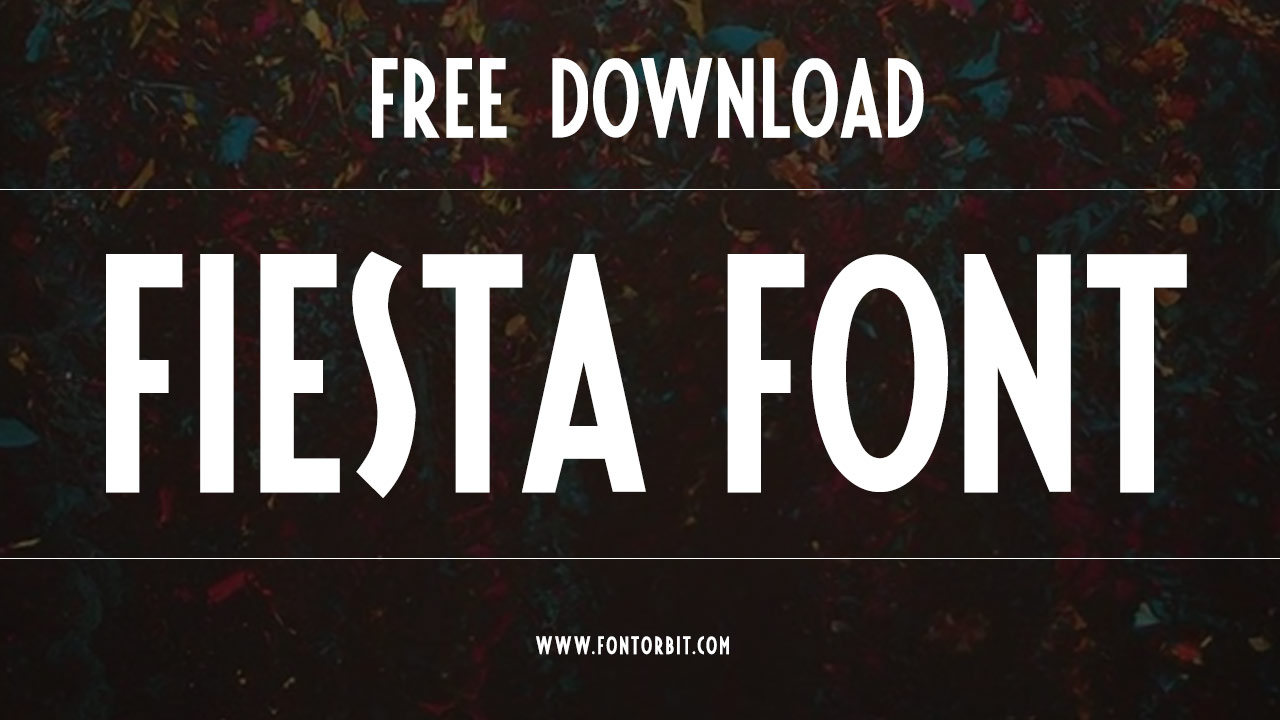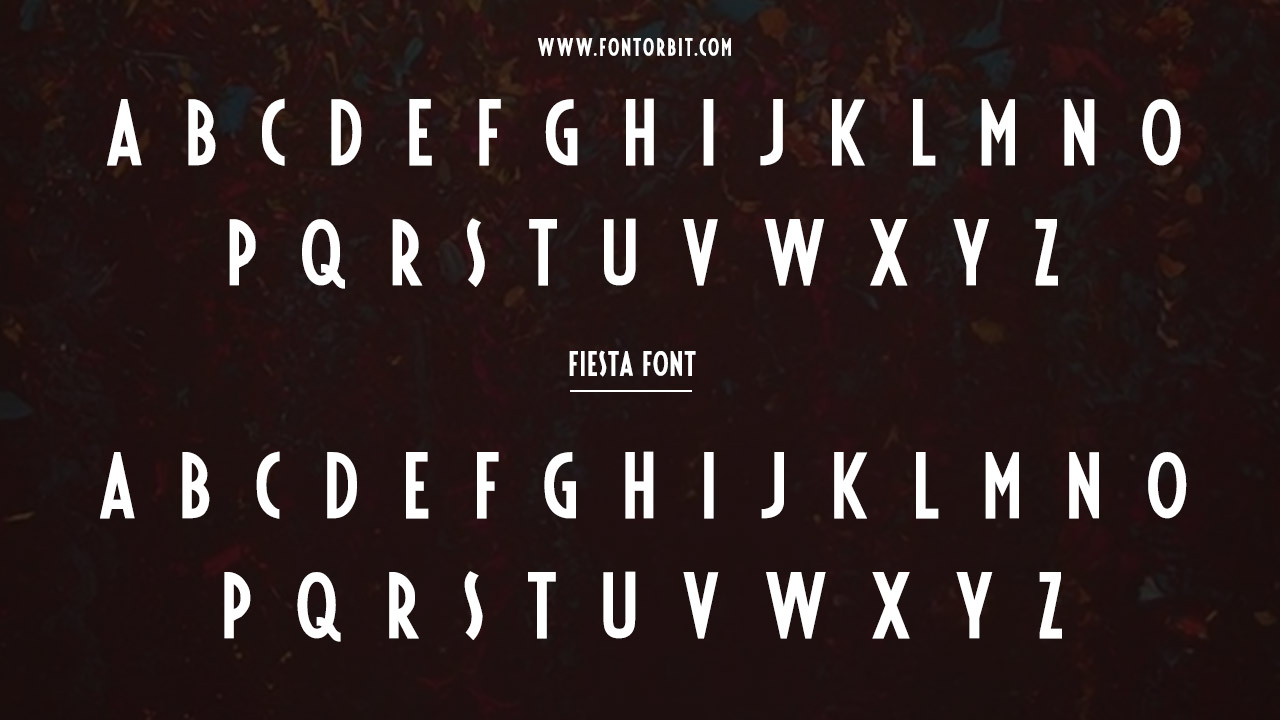
Fiesta Font is a decorative, bold typeface designed by Nowak tv. Its playful curves and retro flair make it perfect for designs that need a touch of fiesta-inspired creativity. Whether working on a Mexican fiesta theme, Cinco de Mayo branding, or party posters, Fiesta Font brings energy and excitement to your designs. Available for free for personal use, the full commercial license unlocks its potential for business projects, logos, branding, and more.
Best Uses
Fiesta Font Shines In The Following Design Projects:
- Mexican Fiesta event posters
- Western-themed designs
- Greeting cards and invitations
- Flyers for celebrations (e.g., birthday, Cinco de Mayo, Tequila-themed parties)
- Branding for products with a bold, festive vibe
- Website headers or typography that needs a retro, decorative touch
- Logos that require a playful, attention-grabbing look
- Labels for products with a Mexican or retro cultural feel
- Banner designs that stand out with fun, decorative fonts
Best Font Pairing
- Montserrat (modern, clean contrast)
- Raleway (sophisticated and elegant)
- Roboto (perfect for pairing with display fonts like Fiesta for readability)
Fiesta Font stands out as a vibrant, decorative typeface that embodies the lively, colorful energy of Mexican culture. It’s a versatile font for personal and commercial use and is ideal for branding, event posters, and typography. Whether designing a fiesta for a birthday or Cinco de Mayo, or creating a logo that pops with personality, Fiesta Font adds boldness and fun to any project. Pair it with modern fonts like Montserrat or Raleway to balance the playful energy with readability, making it a must-have for any designer looking to bring creativity to life.
3. What Is The Inspiration Behind Fiesta Font?
Fiesta Font is inspired by Mexican culture and the lively, vibrant nature of a Mexican fiesta. Its design features elements of retro typography with fun, bold characters, evoking the spirit of viva la fiesta, Cinco de Mayo, and celebrations involving tequila and festive decorative fonts.
6.Can Fiesta Font Be Used In Branding Projects?
Absolutely! Fiesta Font is an excellent choice for branding projects, particularly if you’re aiming for a fun and bold design. It’s ideal for labels, logos, banners, and any design that needs a decorative element and a touch of retro style.
7.What Types Of Designs Is Fiesta Font Best Suited For?
Fiesta Font excels in projects like Mexican-themed designs, party invitations, greeting cards, and event posters. It’s especially effective for Cinco de Mayo promotions, tequila-themed events, and other celebratory occasions where you need decorative fonts and bold typography.